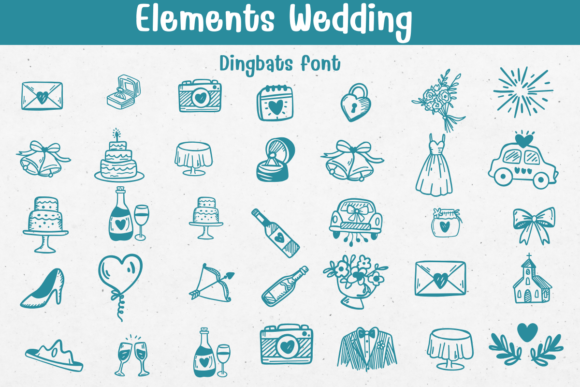
Elements Wedding Font: The Ultimate Romantic Dingbat
Are you looking for a unique and creative way to transform your wedding stationery? Look no further than Elements Wedding, a comprehensive dingbats font featuring over 30 hand-drawn illustrations. This beautiful font is perfect for designers and crafters who want to add a touch of romance and whimsy to their wedding designs.
What is Elements Wedding Font?
Elements Wedding is a “symbol font” that replaces standard characters with charming, line-art wedding icons. With this font, you can easily add a range of wedding-themed illustrations to your designs, from tiered cakes and champagne flutes to bridal gowns and getaway cars. The font features over 30 hand-drawn illustrations, giving you a vast array of options to choose from.
Key Features of Elements Wedding Font
- Comprehensive dingbats font: With over 30 hand-drawn illustrations, Elements Wedding provides a vast range of wedding-themed icons to enhance your designs.
- Professional-grade toolkit: This font is designed to help designers add consistent, thematic flourishes to their layouts without ever leaving their text editor.
- Easy to use: Simply type to access the illustrations, and use them to add a touch of romance and whimsy to your wedding designs.
- Perfect for wedding stationery: Elements Wedding is ideal for creating beautiful wedding invitations, “Save the Date” cards, reception menus, seating charts, and bridal shower favors.
Best Uses for Elements Wedding Font
Elements Wedding is incredibly versatile and can be used in a variety of ways to create stunning wedding stationery. Here are some of the best uses for this beautiful font:
- Wedding Invitations: Use Elements Wedding to create beautiful and unique wedding invitations that set the tone for your special day.
- “Save the Date” Cards: Add a touch of romance and whimsy to your “Save the Date” cards with the charming illustrations in Elements Wedding.
- Reception Menus: Use the font to create elegant and informative reception menus that feature beautiful illustrations.
- Seating Charts: Elements Wedding is perfect for creating stunning seating charts that add a touch of personality to your wedding decor.
- Bridal Shower Favors: Use the font to create beautiful and unique bridal shower favors that your guests will cherish.
Tips for Using Elements Wedding Font
Here are some tips for getting the most out of Elements Wedding:
- Experiment with different combinations: Don’t be afraid to try out different combinations of illustrations to create a unique look.
- Use the font to add a personal touch: Use Elements Wedding to add a personal touch to your wedding stationery and make it truly special.
- Pair with other fonts: Pair Elements Wedding with other fonts to create a beautiful and cohesive look.
Elements Wedding is a beautiful and comprehensive dingbats font that is perfect for designers and crafters who want to add a touch of romance and whimsy to their wedding designs. With over 30 hand-drawn illustrations, this font provides a vast range of options to choose from, making it easy to create stunning wedding stationery. Whether you’re creating wedding invitations, “Save the Date” cards, reception menus, seating charts, or bridal shower favors, Elements Wedding is the perfect choice.